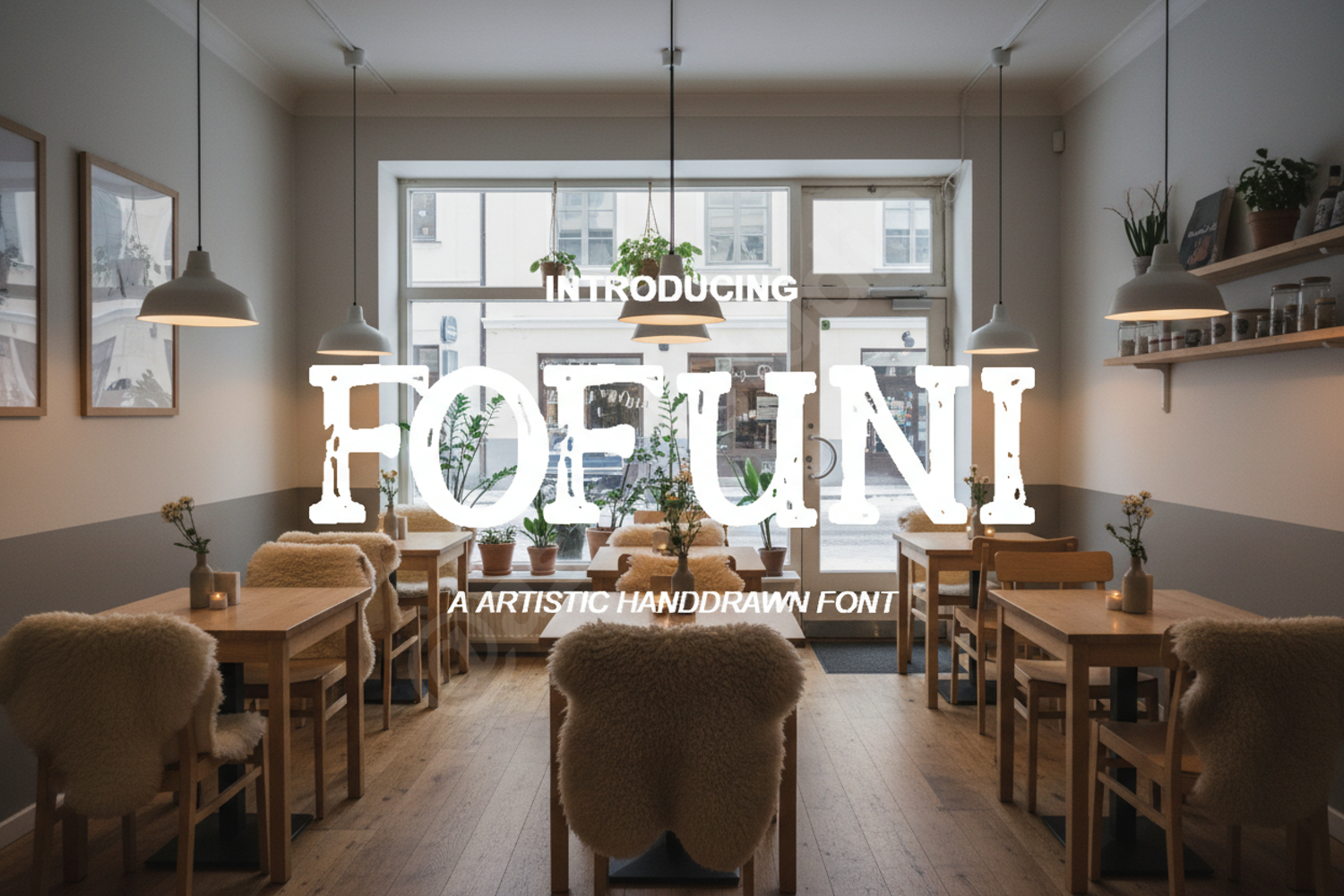
Fofuni - Playful Modern Sans Serif
Fofuni
Fofuni is a premium display font designed to bring a touch of modern sophistication and playful energy to your creative projects. Crafted with precision, this font features clean lines and unique character shapes that ensure your designs stand out with a fresh, contemporary aesthetic. Whether you are building a brand from scratch or enhancing an existing project, Fofuni offers the perfect balance of readability and personality.
- Full set of uppercase and lowercase letters
- Multilingual support for global reach